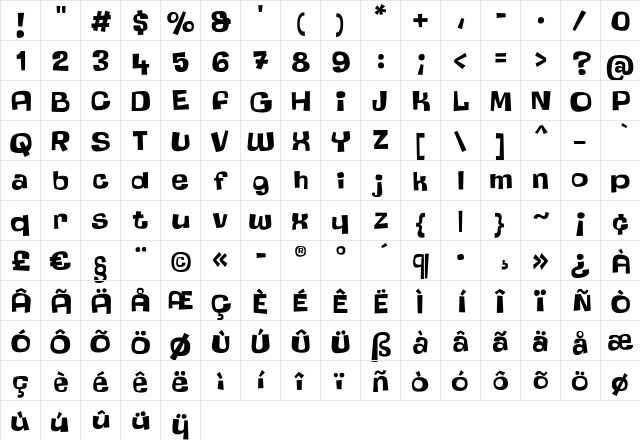
Rigolotte-Regular Regular
Design Context for Rigolotte-Regular Typeface
Rigolotte-Regular is a composed and adaptable typeface that performs quietly and consistently across a wide range of design contexts.